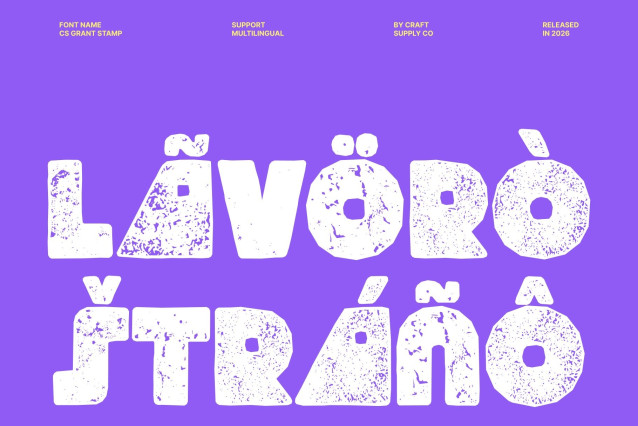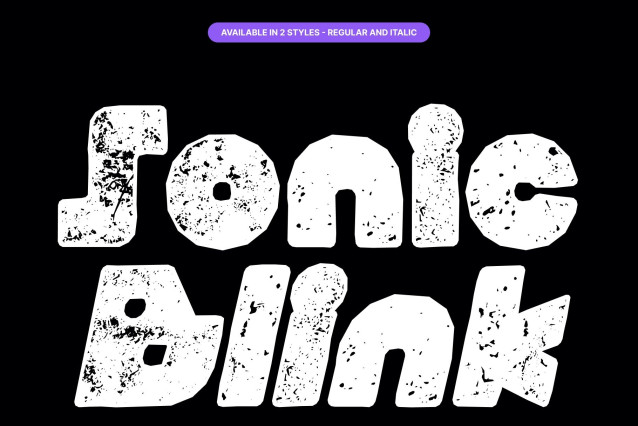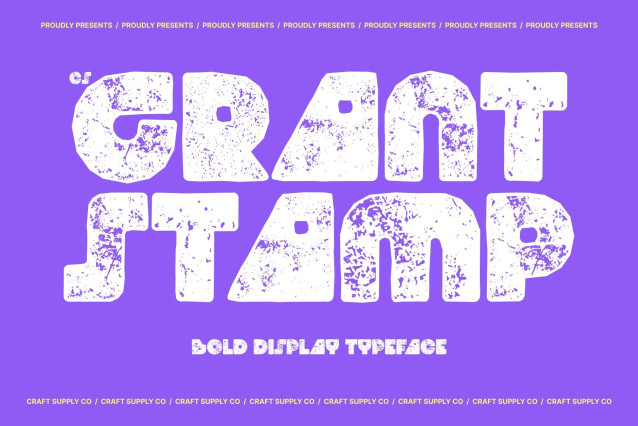
CS Grant Stamp – Modern Display Typeface with Experimental Geometry
Modern Structure with Bold Expression
This is a modern display typeface built from strong geometric shapes and confident construction. Its bold framework creates immediate visual impact, while experimental letterforms give the font a distinctive contemporary character. The added stamp texture introduces a subtle vintage print feel, blending modern design with tactile depth.
Geometric Forms with Unique Personality
What sets this font apart is its unconventional approach to geometry. Bold shapes and unexpected details bring creativity and originality, helping the typeface stand out from typical display fonts. Despite its experimental nature, the design remains balanced and readable, ensuring expressive yet functional typography.
Fresh, Modern, and Eye-Catching
This font delivers an energetic, forward-thinking aesthetic that feels both innovative and stylish. The combination of modern structure and stamped texture creates a unique contrast clean and contemporary with a hint of artistic grit.